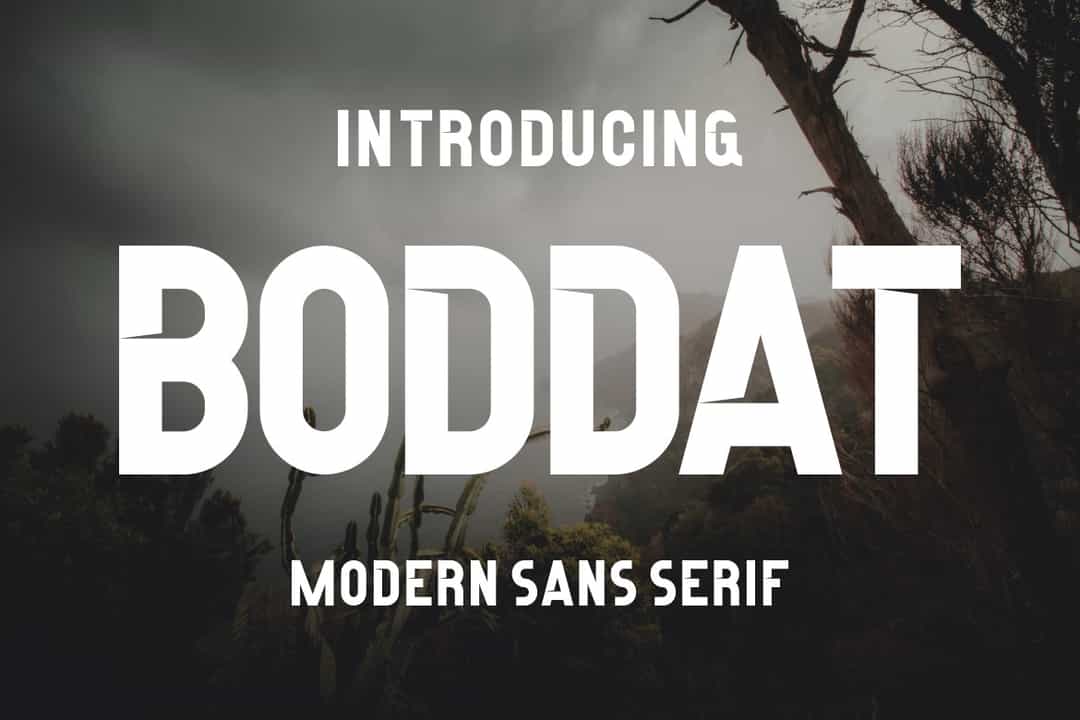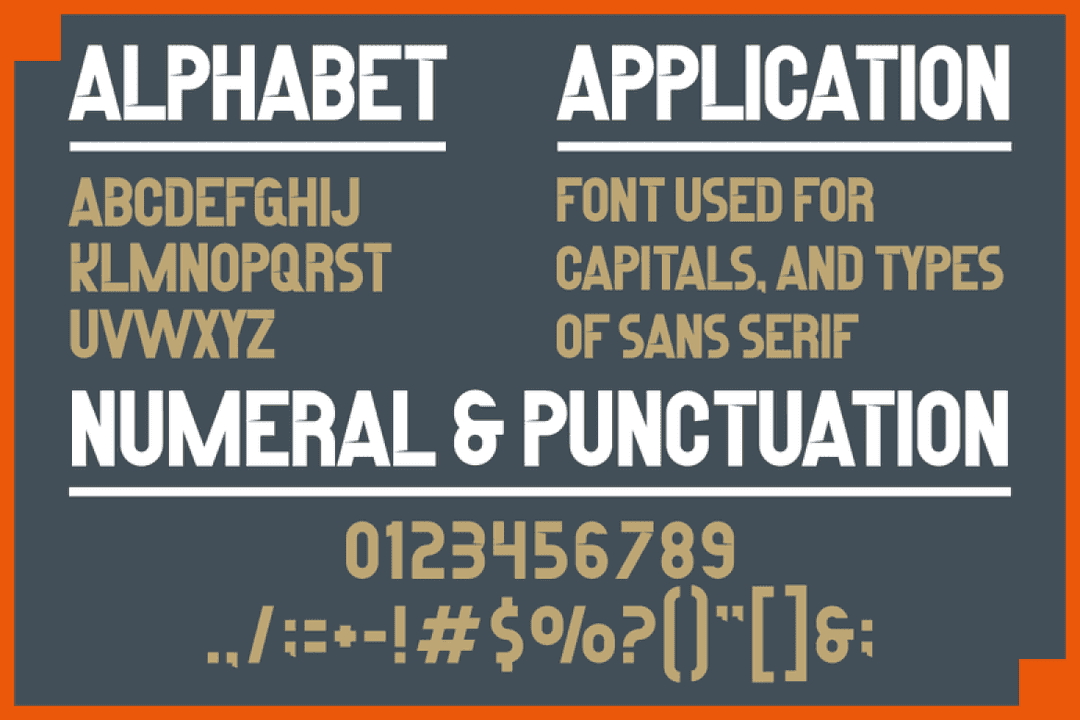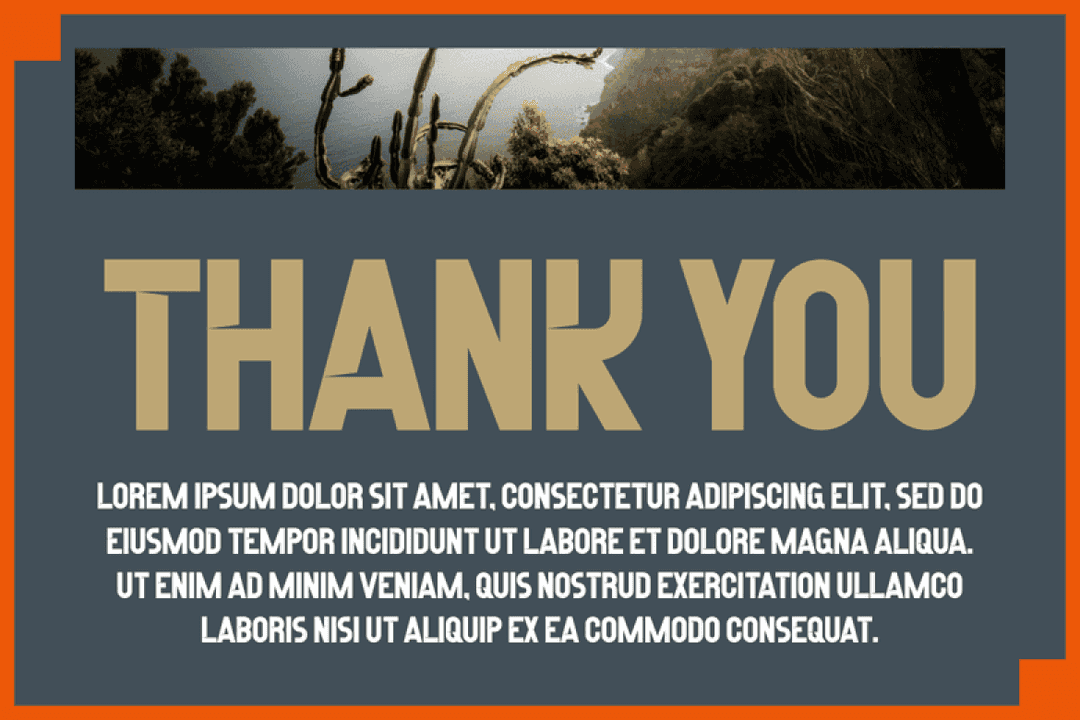
Boddat is an elegant and contemporary sans serif font with distinctive and well-balanced letterforms that makes for an eye-catching font. You will fall in love with its amazing versatility to craft captivating designs!